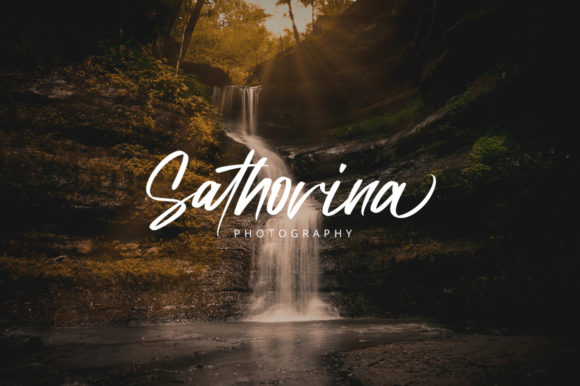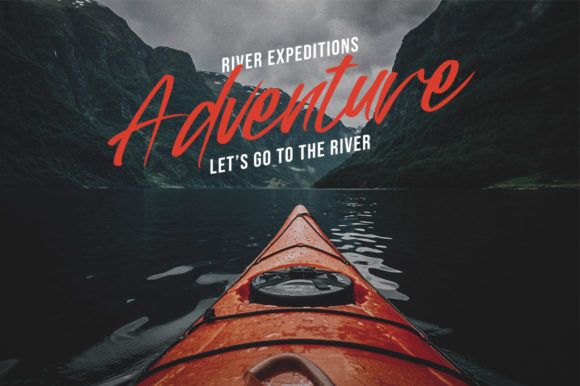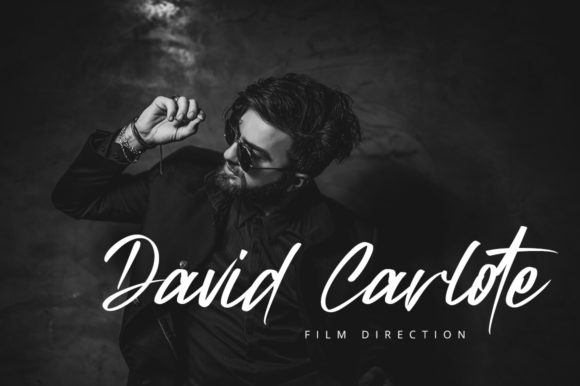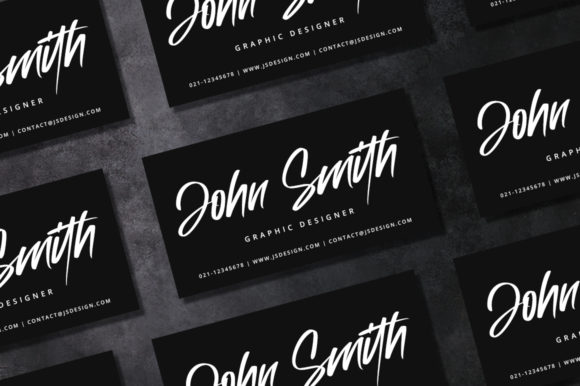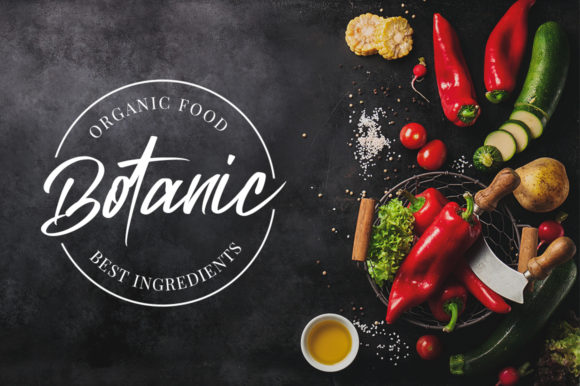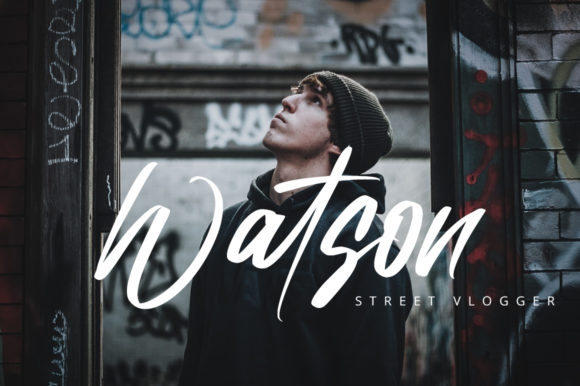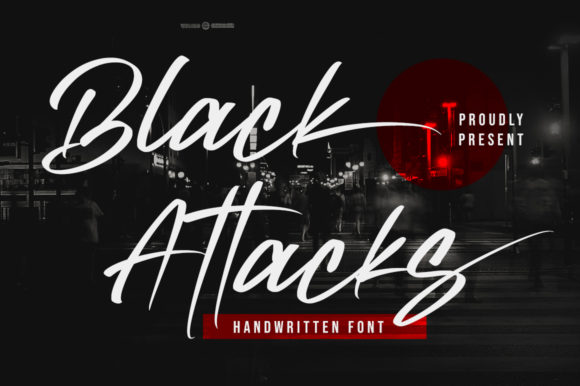
Unleash Your Creativity with Black Attacks Font: A Timeless Handwritten Masterpiece
Are you a designer, craftsperson, or simply a creative enthusiast looking for the perfect font to elevate your projects? Look no further than Black Attacks Font, a stunning handwritten font that exudes elegance and sophistication. With its unique blend of fluidity and refinement, this font is sure to capture your heart and inspire your next design masterpiece.
The Distinctive Charm of Black Attacks Font
Black Attacks Font is a flowing handwritten font that boasts an incredibly distinct and timeless style. Its elegant touch is perfect for a wide range of projects, from creative crafts and DIY designs to professional branding and marketing materials. The font’s unique character lies in its delicate balance of curves and lines, which come together to create a truly eye-catching visual experience.
What Makes Black Attacks Font So Special?
So, what sets Black Attacks Font apart from other fonts on the market? Here are just a few reasons why this font has captured the hearts of designers and crafters alike:
• Elegant and Refined: Black Attacks Font features an undeniably elegant and refined aesthetic that adds a touch of sophistication to any design.
• Unique and Distinctive: With its flowing handwritten style, this font boasts a unique character that is sure to make your designs stand out from the crowd.
• Timeless Appeal: Unlike trendy fonts that quickly go out of style, Black Attacks Font has a timeless quality that ensures your designs will remain stylish and relevant for years to come.
• Versatile: Whether you’re working on a creative craft project, a professional branding campaign, or simply a personal design endeavor, Black Attacks Font is the perfect choice.
How to Use Black Attacks Font in Your Designs
Ready to unleash your creativity with Black Attacks Font? Here are a few tips to get you started:
• Pair it with Bold Colors: Black Attacks Font looks stunning when paired with bold, vibrant colors. Try combining it with a bright hue to create a striking visual contrast.
• Add Decorative Elements: Take your design to the next level by adding decorative elements, such as floral patterns or geometric shapes, to complement the font’s elegant style.
• Experiment with Different Sizes: Black Attacks Font looks great in a variety of sizes, from large and bold to small and delicate. Experiment with different sizes to find the perfect fit for your design.
Perfect for Creative Projects and Designs
Black Attacks Font is the perfect choice for a wide range of creative projects and designs, including:
• Branding and Marketing Materials: Use Black Attacks Font to create stunning logos, business cards, and marketing materials that showcase your brand’s personality and style.
• Creative Crafts and DIY Projects: Add a touch of elegance to your craft projects, such as handmade cards, scrapbooking, and home decor.
• Digital Designs: Use Black Attacks Font to create beautiful digital designs, including social media graphics, blog headers, and website elements.
In conclusion, Black Attacks Font is a truly exceptional handwritten font that offers a unique blend of elegance, refinement, and timeless style. Whether you’re a designer, craftsperson, or simply a creative enthusiast, this font is sure to inspire your next design masterpiece. So why wait? Fall in love with Black Attacks Font and unleash your creativity today!